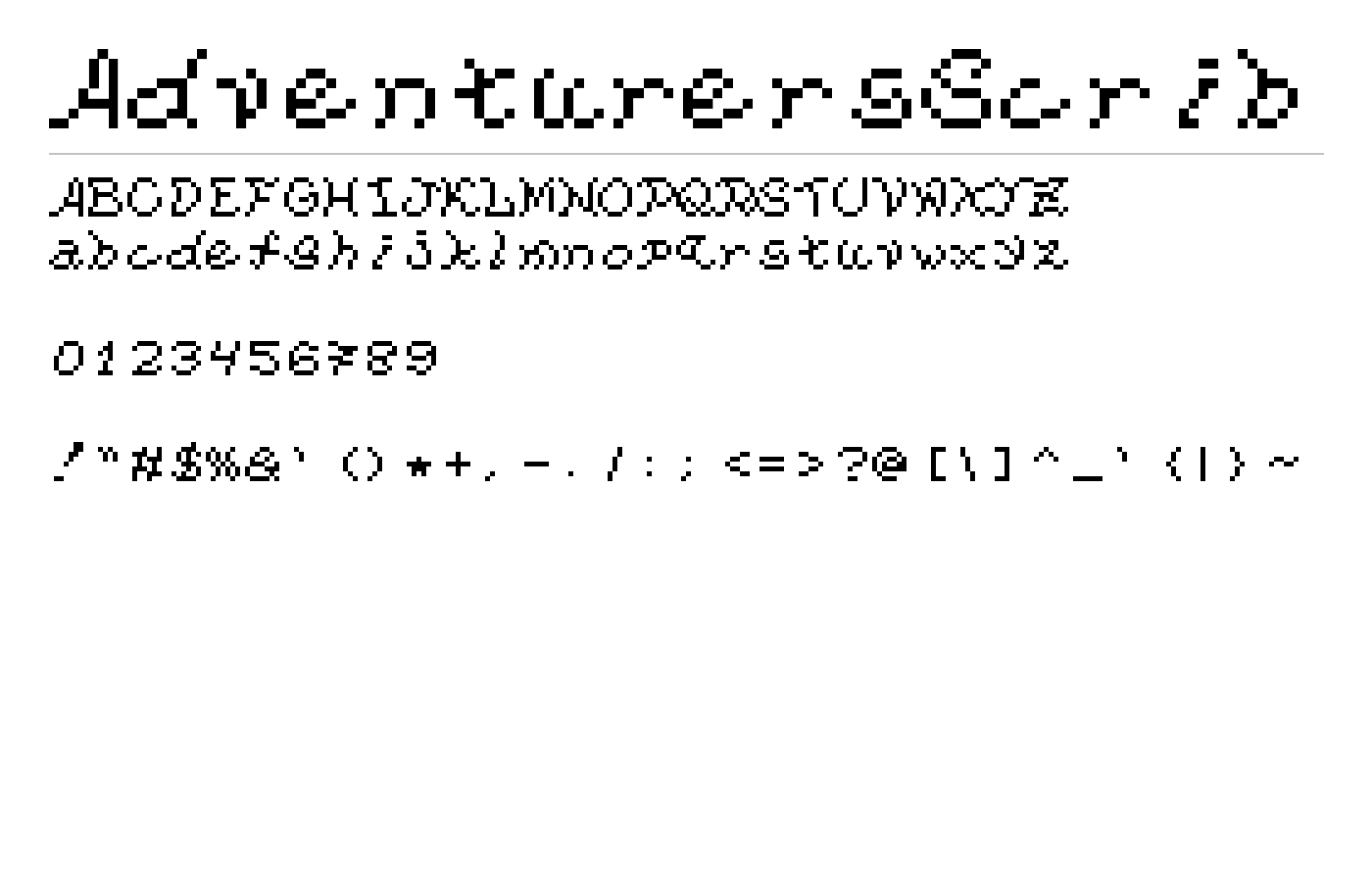
AdventurersScrib is a pixelated, monospaced font with a playful, retro digital vibe, combining the structure of a mechanical typeface with the casual flow of handwriting. Its light weight, narrow width, and angular strokes evoke old-school computer graphics, making it ideal for gaming, tech-inspired designs, or nostalgic digital themes. This font works best in headlines, logos, and creative projects where a vintage, pixel-art aesthetic is desired.
AdventurersScrib Font
About AdventurersScrib Font